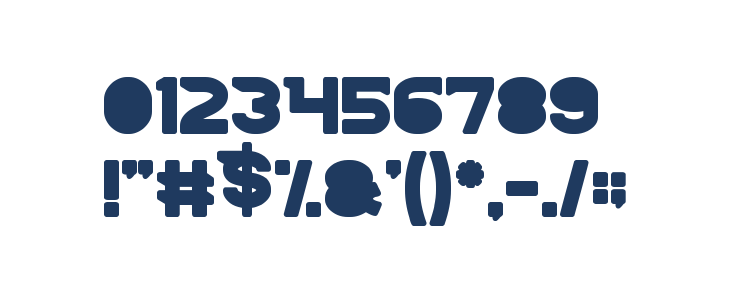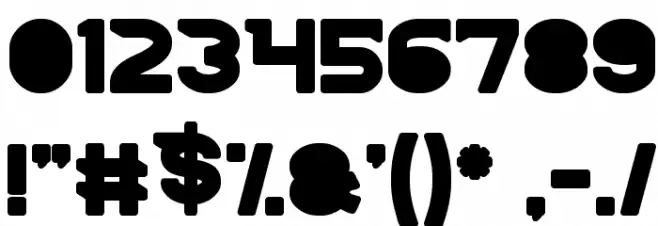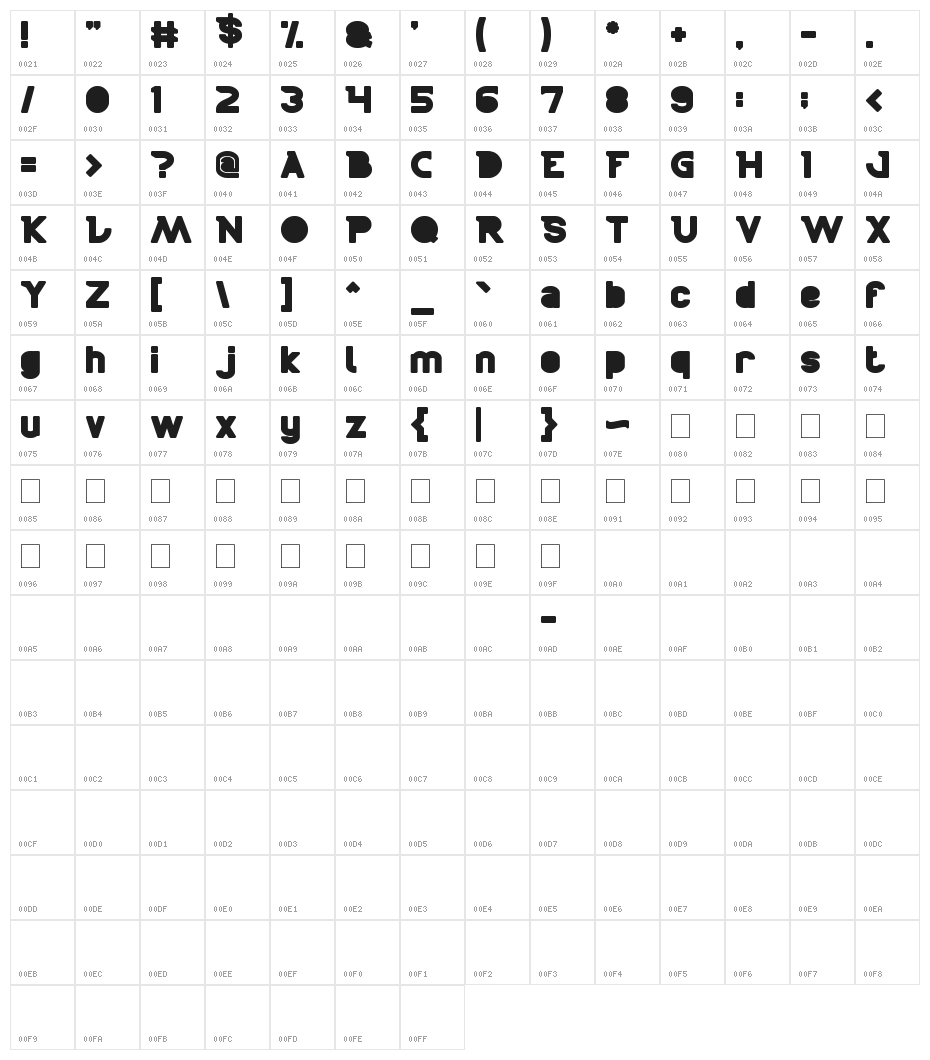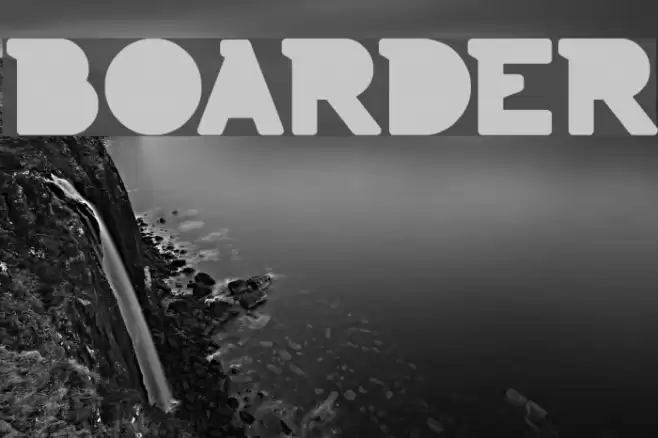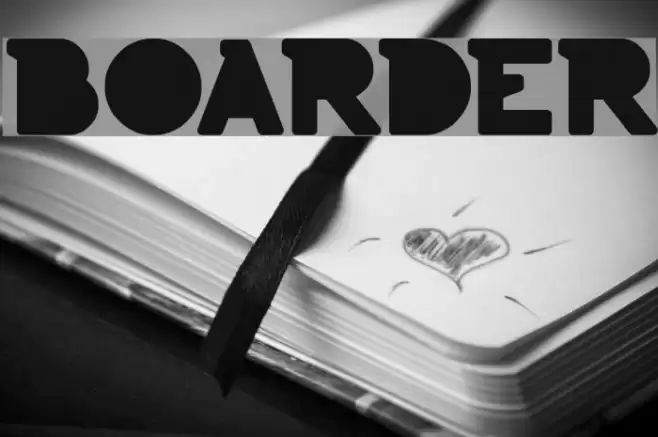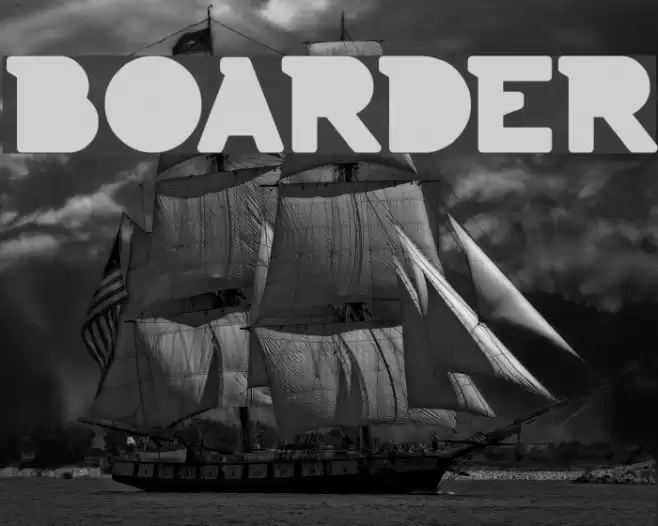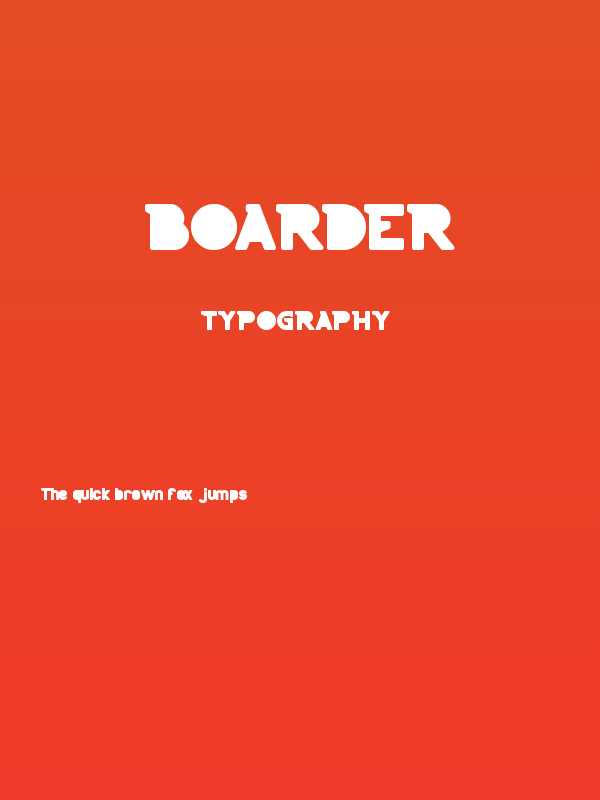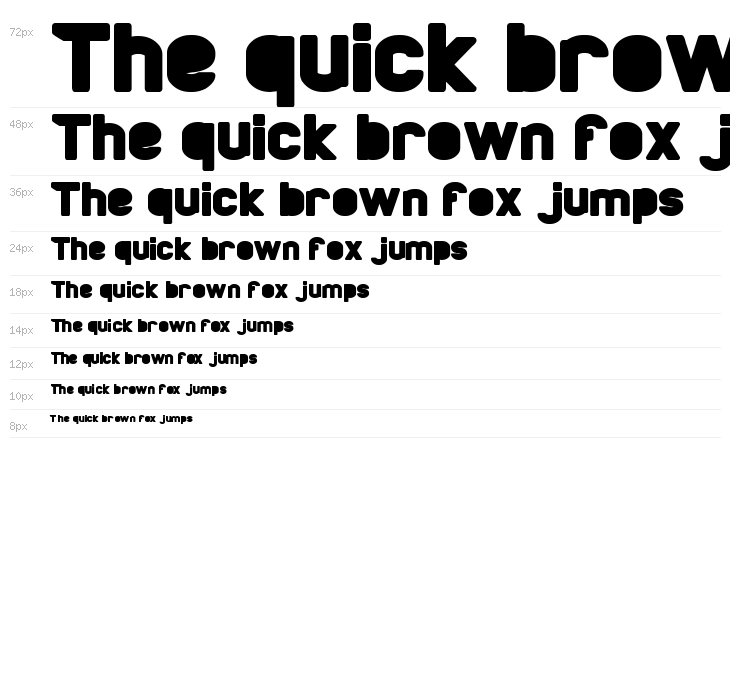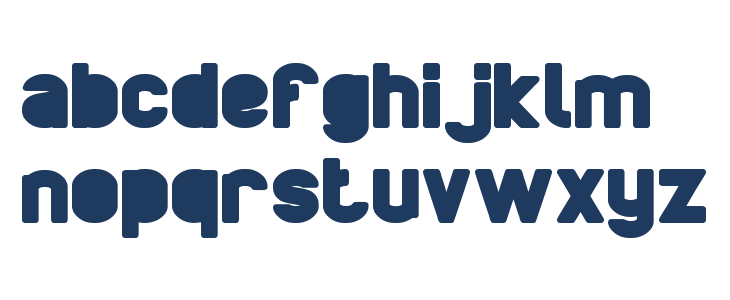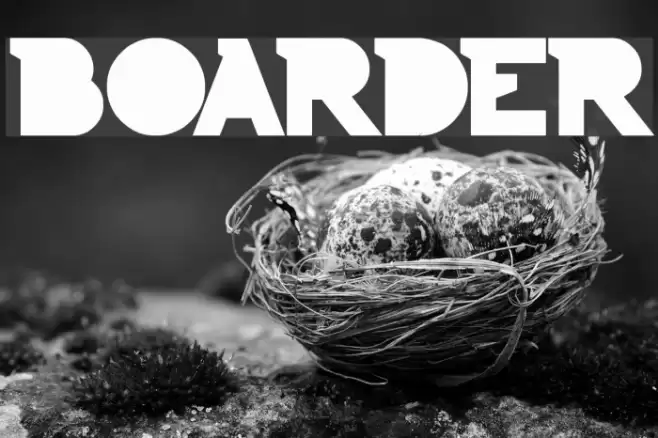
BOARDER Font
BOARDER Description
This font features bold, rounded characters with a playful and modern aesthetic. The letters are uniformly thick, giving a strong and impactful appearance. The rounded edges soften the overall look, making it approachable and friendly. The numerals and special characters maintain this consistency, ensuring a cohesive design throughout. The style is reminiscent of retro or vintage signage, yet it retains a contemporary feel. This balance of boldness and softness makes it versatile for various design applications.
| Proposed Projects | Ideal for branding, posters, headlines, and any project requiring a strong, friendly visual impact. |